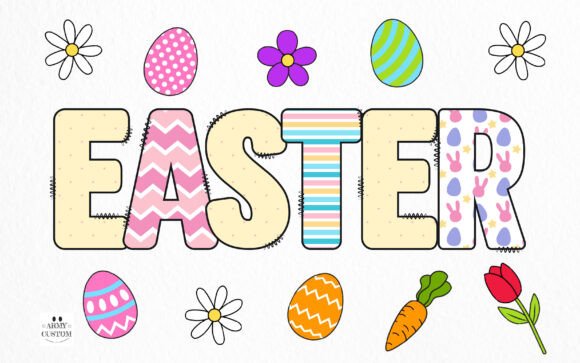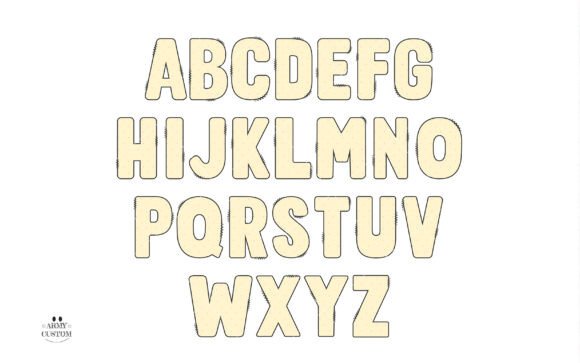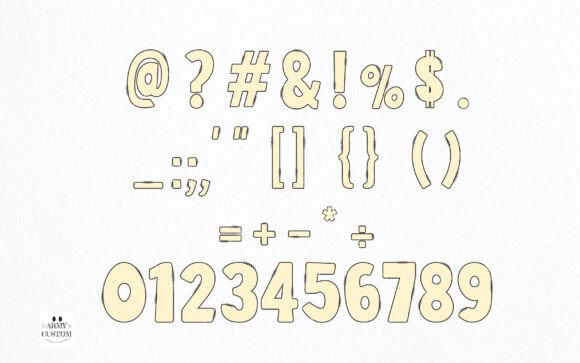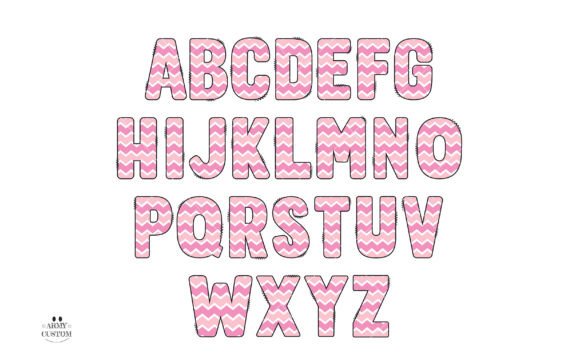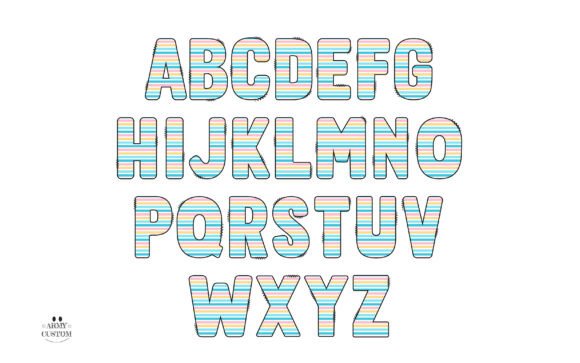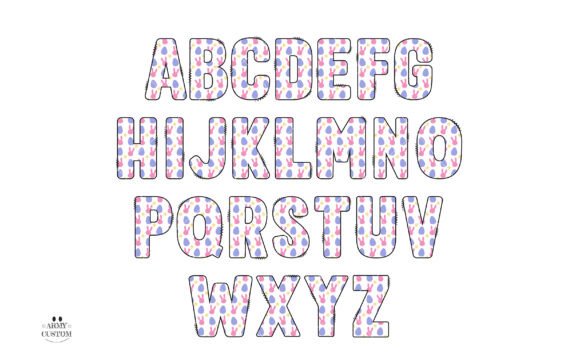
Unlock the Joy of Easter with the Easter Bundle Font
Have you ever been stuck on a design project, struggling to find the perfect font to bring your vision to life? I know I have! It’s that moment of frustration when you’re pouring your heart and soul into a project, and the right font can make all the difference.
That’s where the Easter Bundle Font comes in – a spirited artistic vision that embodies the rhythmic charm and joyful exhilaration of Spring. This font is not just a tool, but an artistic expression that effortlessly transcribes your ideas into delightful visual narratives. Whether you’re designing Easter-themed decorations, greeting cards, or packaging, the Easter Bundle Font is a valuable addition to your design arsenal.
Easter Bundle Font Key Features
- Unique Characteristics: Easter Bundle Font features a unique blend of Easter-themed elements, such as eggs, bunnies, and flowers, adding a playful touch to any design.
- Font Style: The font comes in two styles: Regular and Bold, allowing designers to create contrast and emphasis in their designs.
Easter Bundle Font Review
Overall, I’m quite impressed with the Easter Bundle Font. It’s a beautiful, whimsical collection of fonts that’s perfect for spring-themed designs or Easter-related projects. ✨ The font’s playful, hand-drawn style is both charming and eye-catching, making it a great choice for creating unique and engaging visual content.
One of the things I love about this font is its versatility. ✨ It includes a range of styles and weights, from bold and playful to delicate and intricate. This makes it easy to find the perfect font to match your design’s tone and mood.
- Playful, hand-drawn style that’s perfect for spring-themed designs or Easter-related projects
- Includes a range of styles and weights for added versatility
- Easy to read and use, even at smaller font sizes
- May not be suitable for formal or professional designs due to its playful, whimsical style
- Limited character set, which may make it difficult to use for longer blocks of text
- Some of the more intricate designs may be difficult to read or use in smaller sizes
Overall, I’d say the Easter Bundle Font is a great choice for designers looking to add some personality and whimsy to their spring-themed designs or Easter-related projects. While it may have some limitations, its unique style and versatility make it a great addition to any designer’s toolkit.
The Easter Bundle Font is perfect for creating Easter-themed designs, such as invitations, posters, and social media graphics. It’s also great for adding a festive touch to your branding materials, like business cards and brochures.